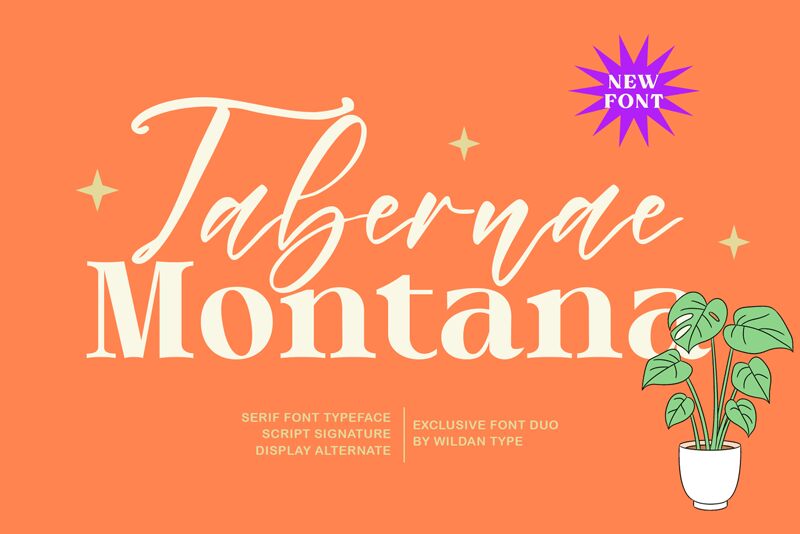
Tabernae Montana Script
Tabernae Montana Script, designed by Wildan Type, exudes a captivating, handwritten elegance. This signature-style font boasts fluid, expressive strokes that seamlessly blend together, creating a natural, organic flow. Its distinctive, script-like appearance evokes a sense of warmth and personality, making it a compelling choice for a wide range of design projects.
Tabernae Montana Script's versatility shines through its ability to effortlessly adapt to various applications, from invitations and stationery to branding and packaging. Its unique character and personality make it an excellent selection for projects that require a touch of personalization, authenticity, and signature-inspired flair, such as wedding suites, greeting cards, and artisanal product labels.